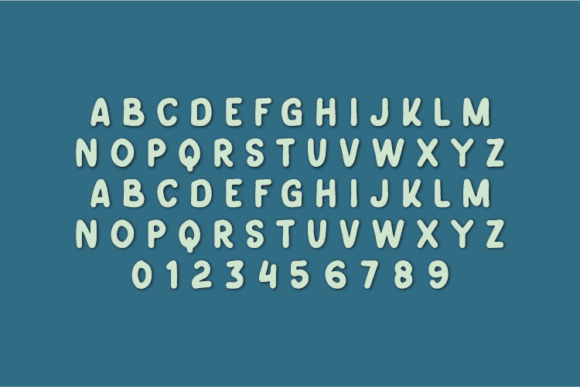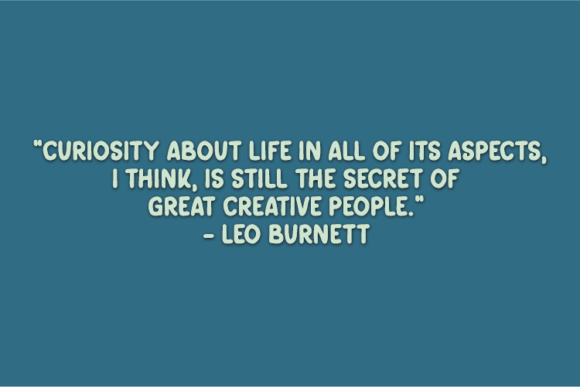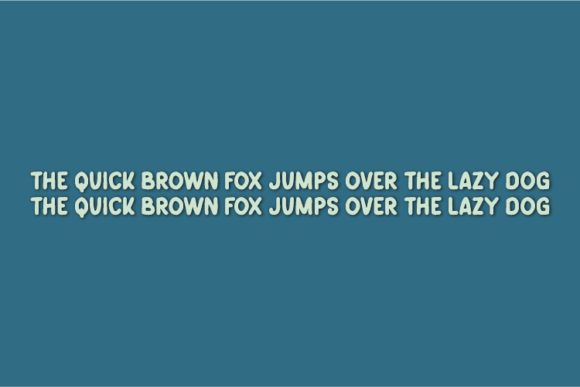
Introduction to Scarlet Sword Font
Scarlet Sword is an adaptable and clean handwritten font.
Key Features of Scarlet Sword Font
Why Choose Scarlet Sword Font?
Scarlet Sword Font offers exceptional quality and versatility, making it a valuable addition to your design toolkit. Whether you’re creating for personal projects or commercial use, Scarlet Sword Font delivers professional results.